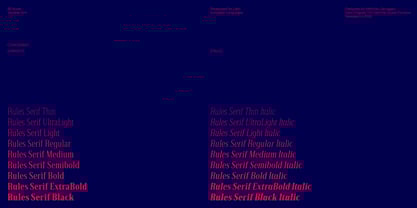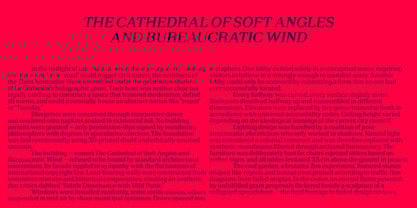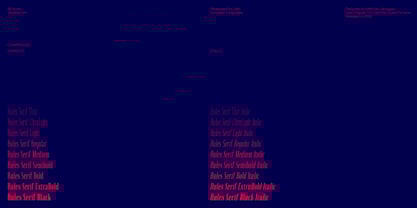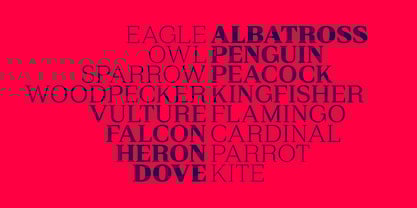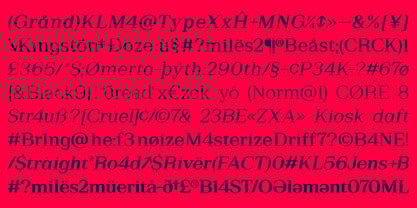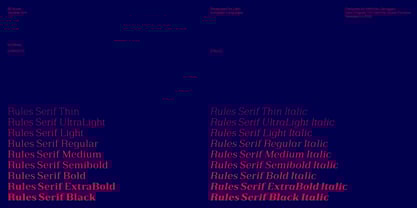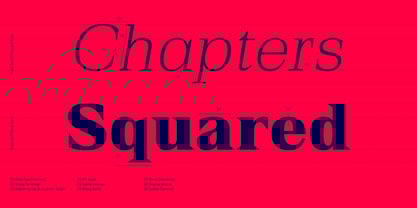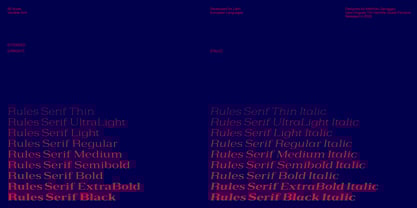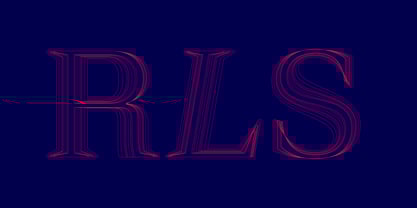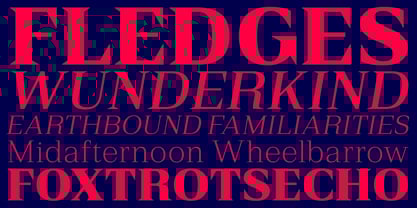
Rules Serif
Die Schriftfamilie Rules Serif wurde von Matthieu Salvaggio, Tim Vanhille entworfen und von Blaze Type veröffentlicht. Rules Serif enthält 90 Stile und Familienpaketoptionen.
Rules Serif is the serif reinterpretation of the Rules font family. It channels a refined, editorial spirit while maintaining the structural rigor and versatility of its grotesque roots. Reworked in 2024, Rules Serif introduces a sharp, elegant texture through its finely tapered serifs and crisp terminals. This update expands the family’s range of weights and widths, allowing designers to move fluidly between expressive headlines and dense, readable paragraphs. Rooted in Swiss Modern design tradition, Rules Serif maintains precise vertical rhythm, controlled contrast, and strong typographic presence. Its sharp features bring clarity and sophistication to every setting, making it ideal for both immersive reading and striking typographic composition. Built for high performance across print, web, and apps, Rules Serif is equally at home in body text, editorial design, book typography, or bold display settings like posters and signage.